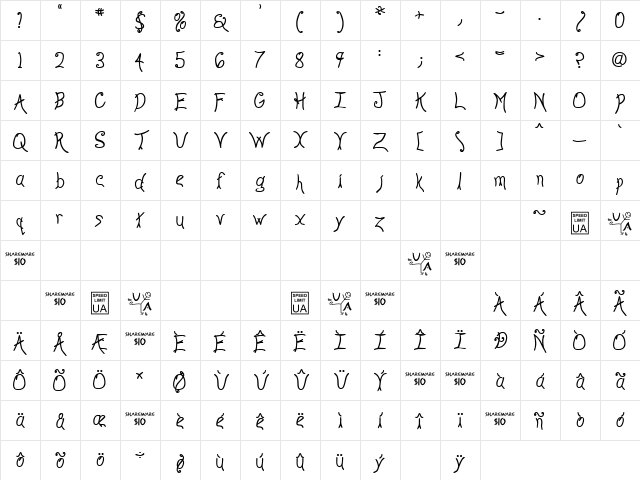
Anyway Regular
Design Context for Anyway
Anyway is a composed and adaptable typeface that performs quietly and consistently across a wide range of design contexts.